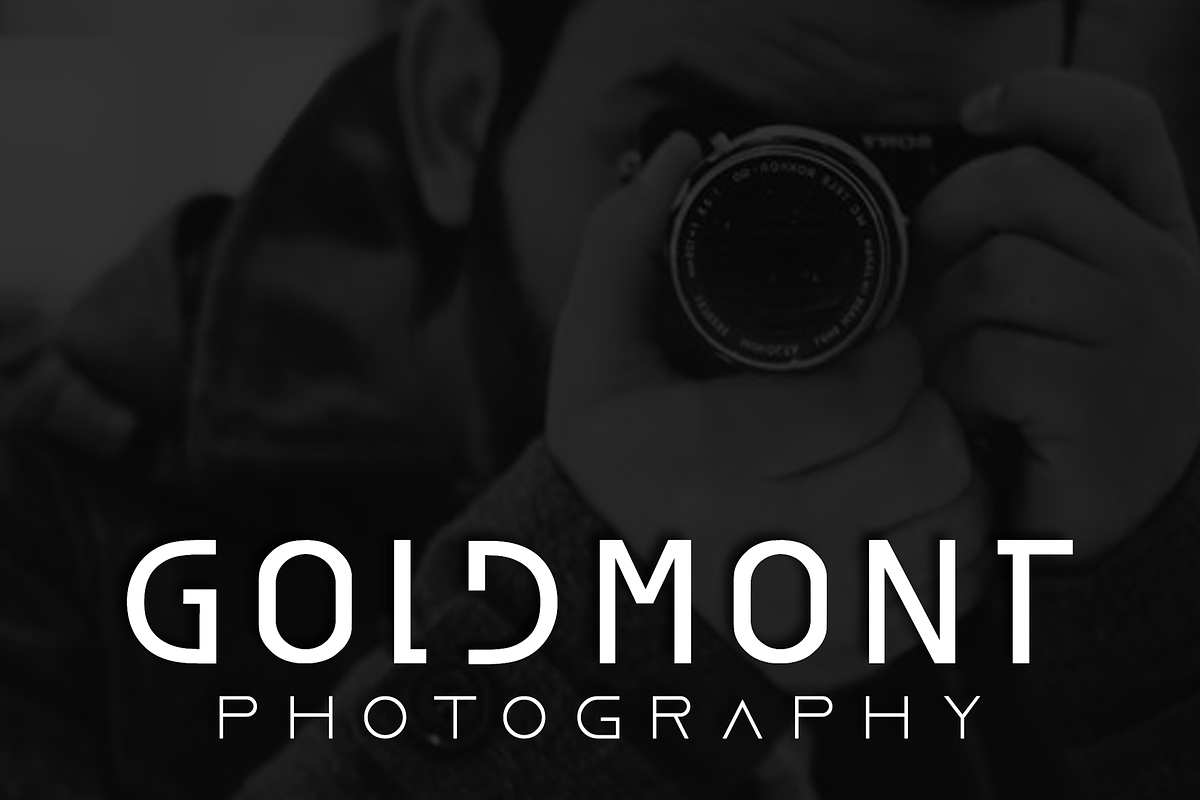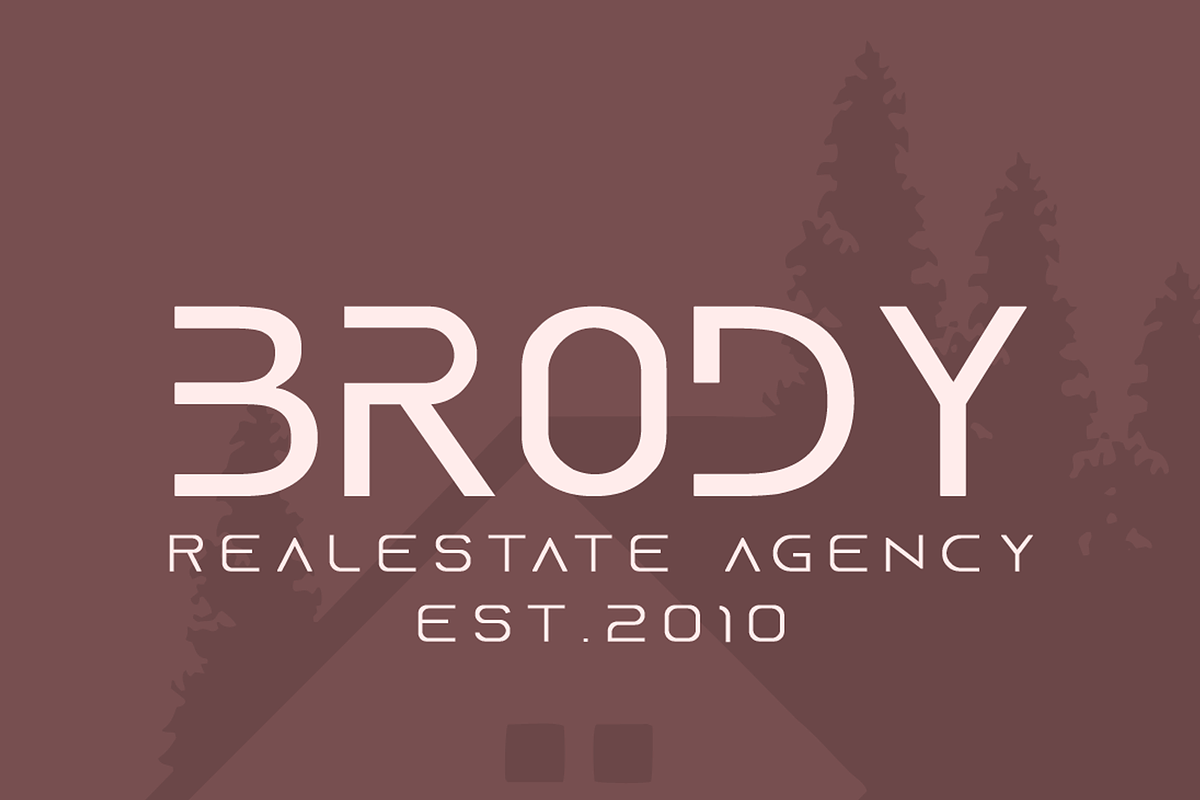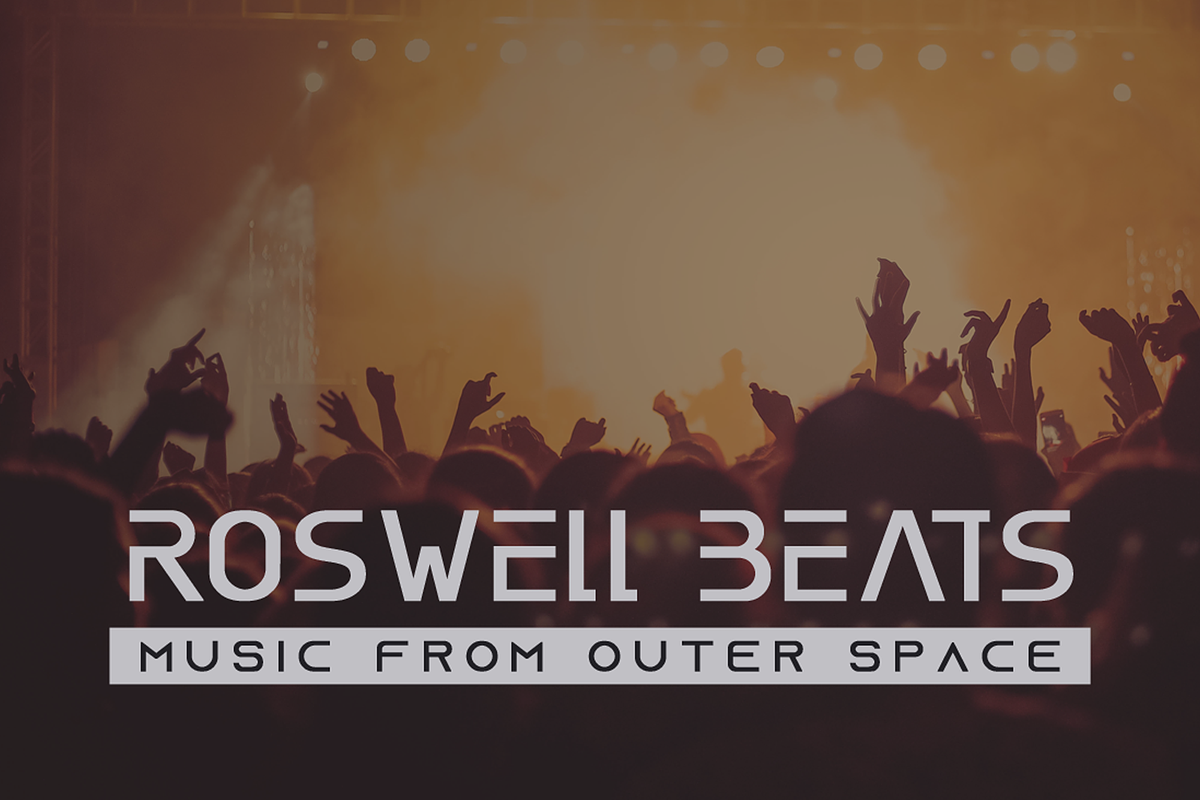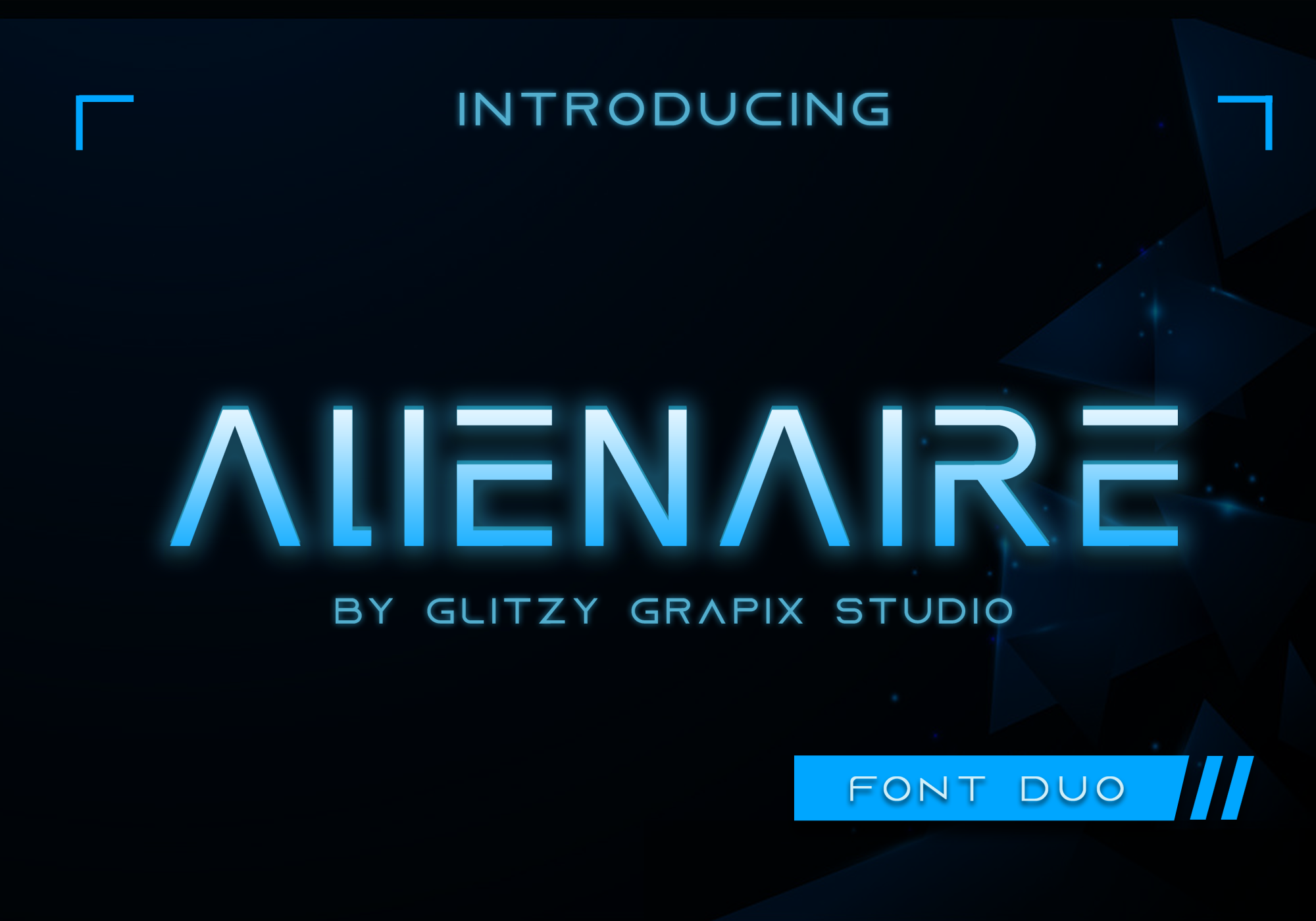
Alienaire Font Duo
Alienaire Font Duo – a futuristic logo font duo.
Alienaire Font – a modern, futuristic, all-caps sans-serif font with endless possibilities. Toggle caps lock to use alternate versions of some letters.
Alienaire Duo Font – is a modern, futuristic sans-serif font with wide letters. It includes English all – cap letters, basic punctuation and numbers.